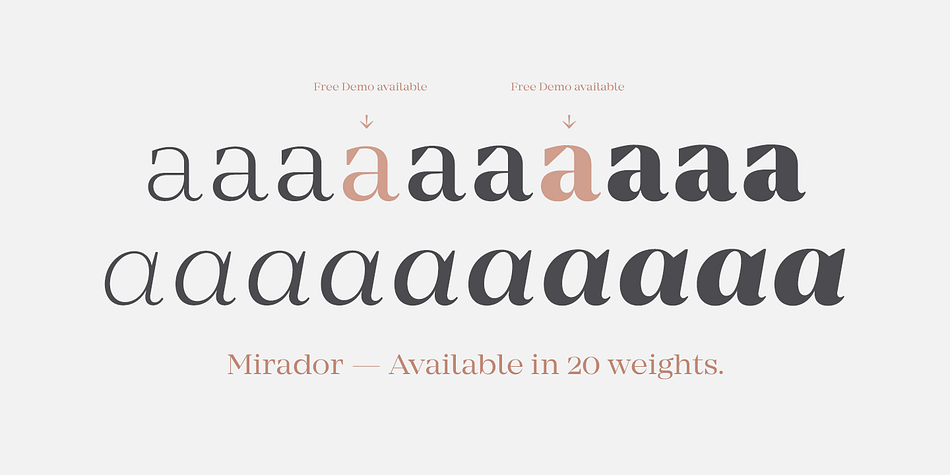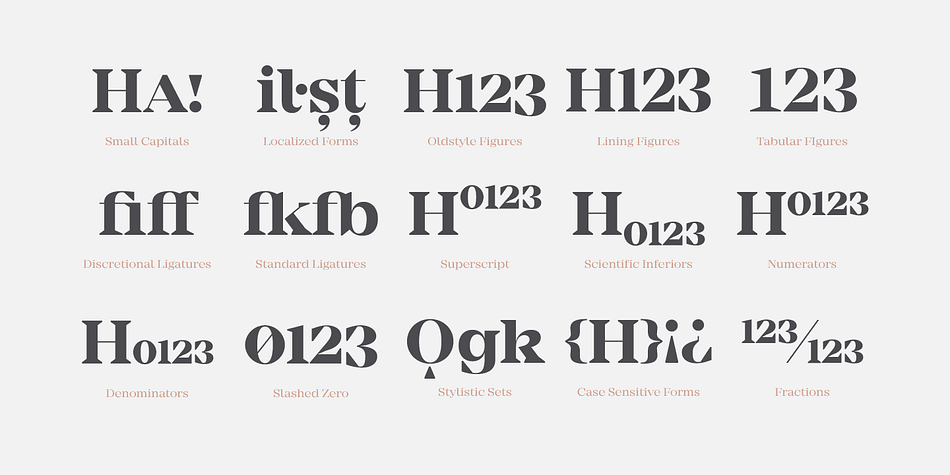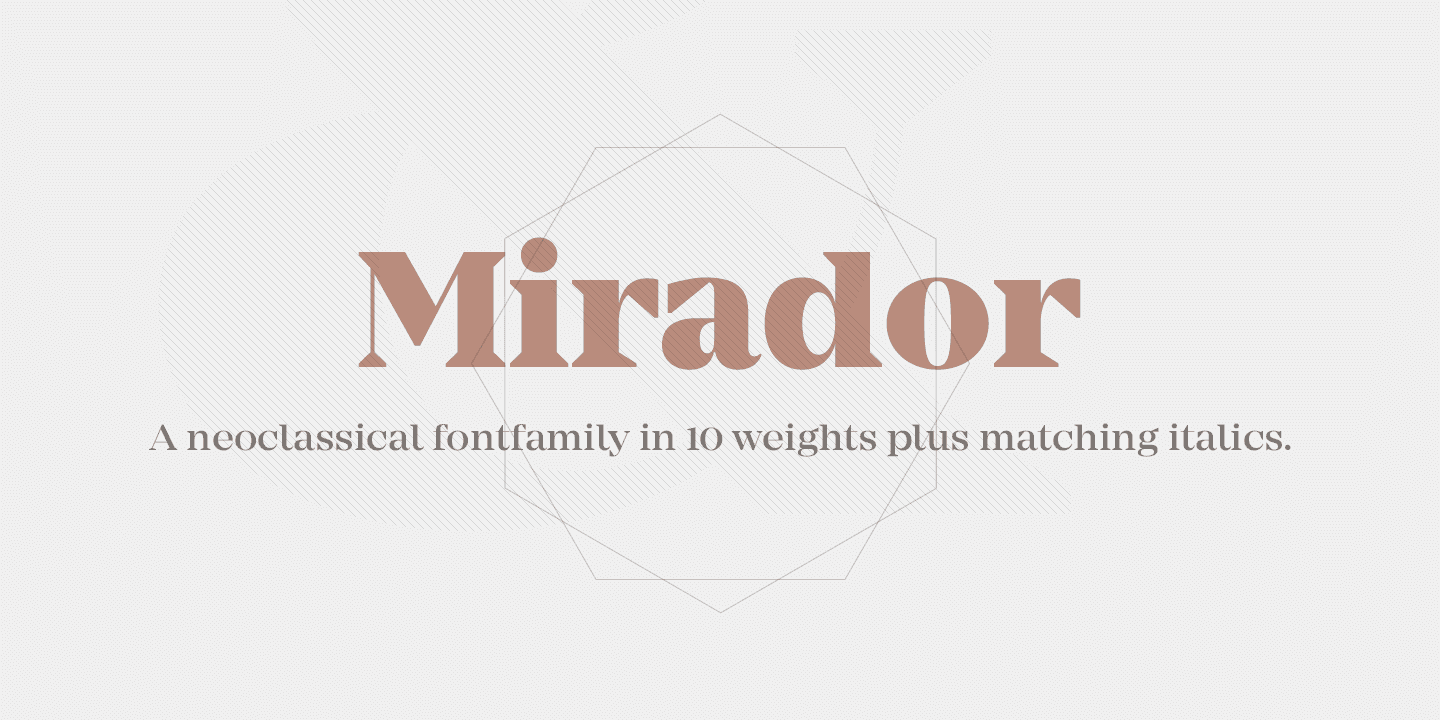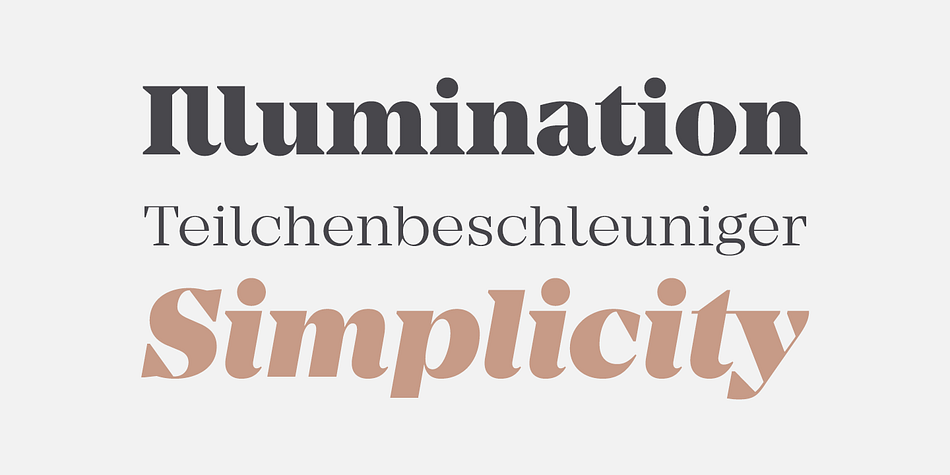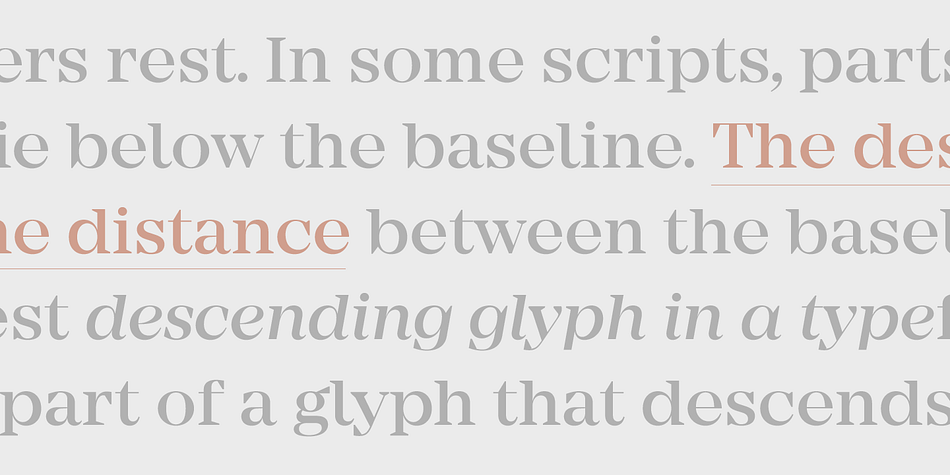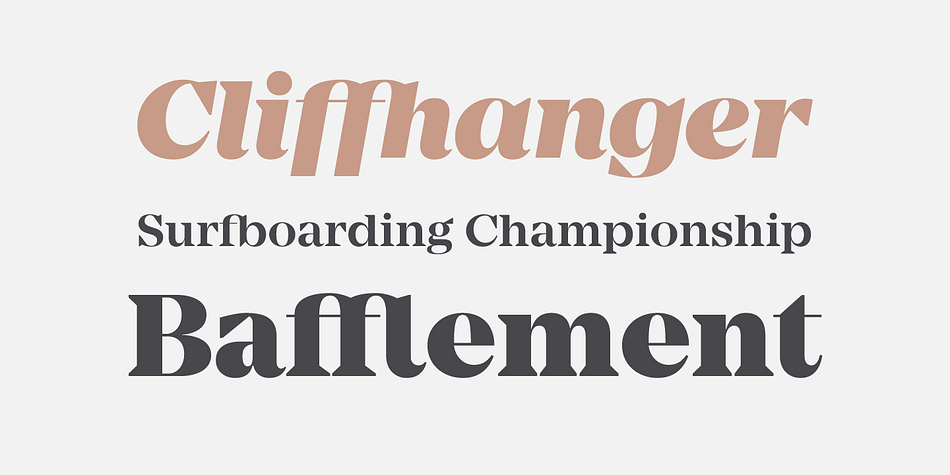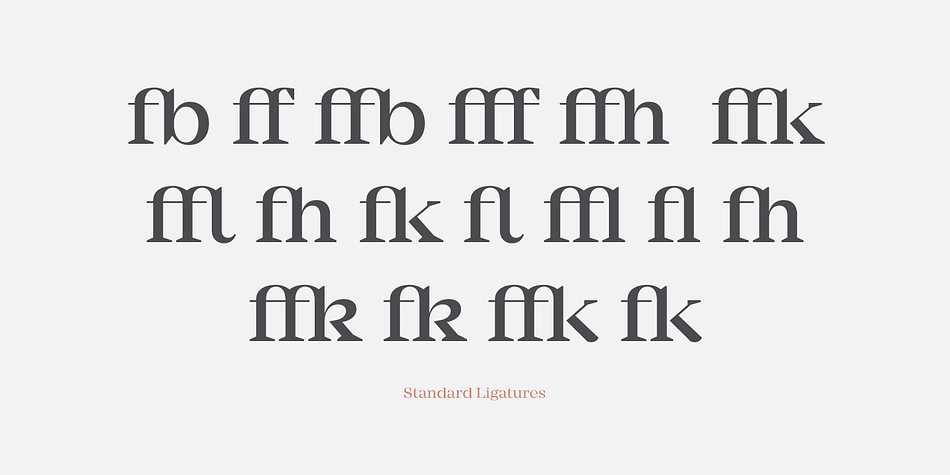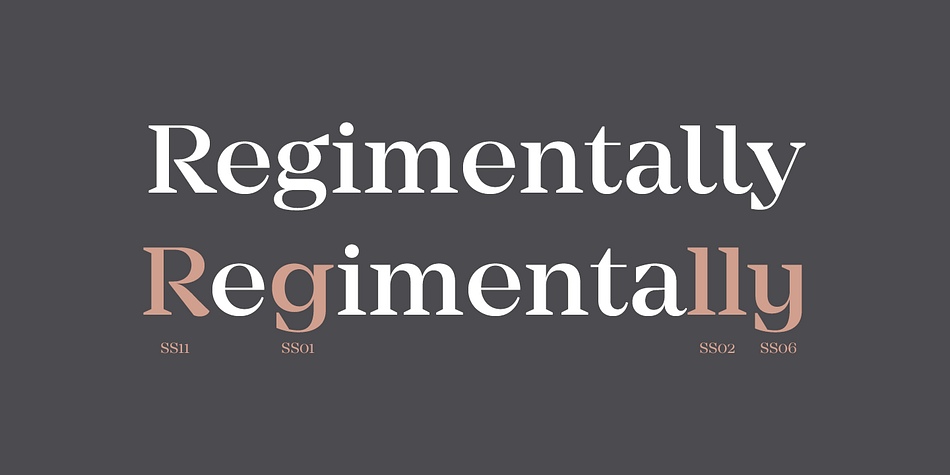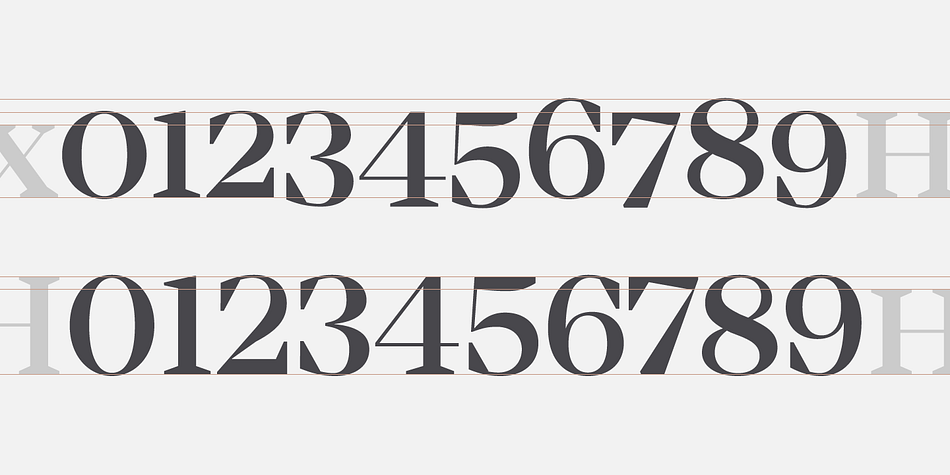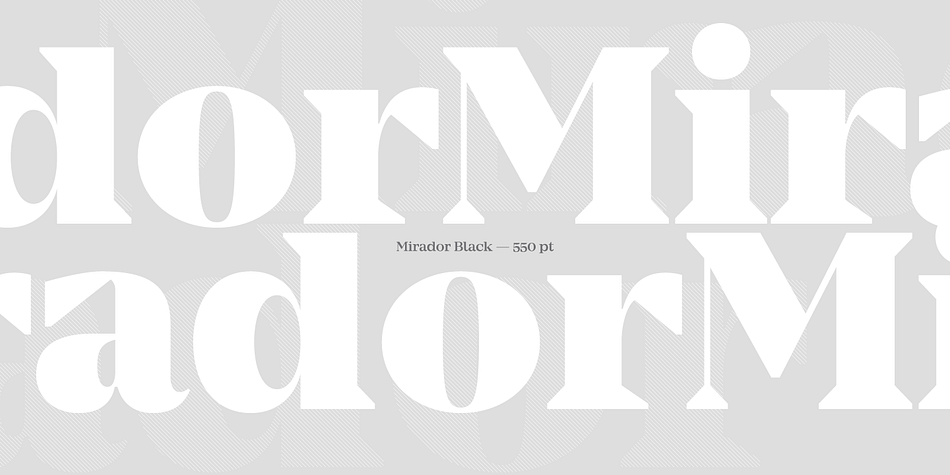
Designed by Rene Bieder, Mirador is a serif font family. This typeface has twenty-two styles and was published by Rene Bieder.
Mirador is a powerful neoclassical font family designed for various usages — ranging from editorial and corporate design to web, interaction and product design. It is a contemporary take on high contrast typefaces that have never gone out of style — defined by elegance, tradition and timelessness. Although Mirador seems to be a display font at first glance, its proportions and design reveal a powerful and characteristic workhorse when set in smaller sizes.
Mirador comes in 10 weights with matching italics. It is equipped with ligatures, a large set of alternative glyphs and many more opentype features.